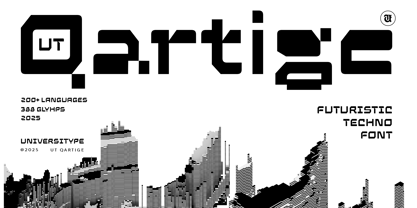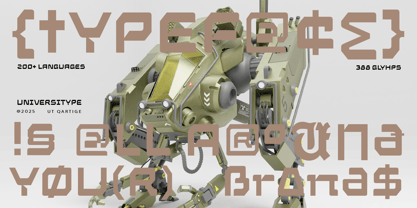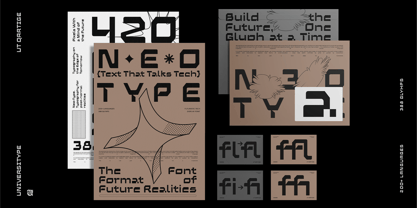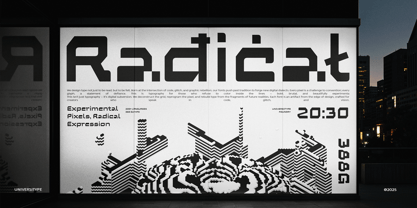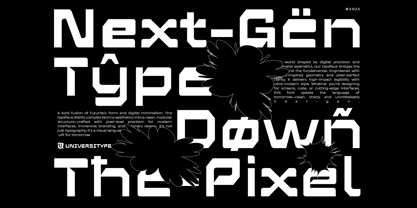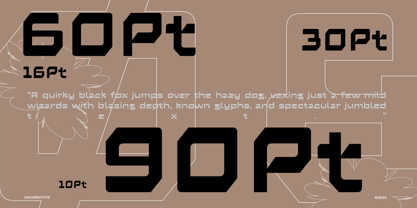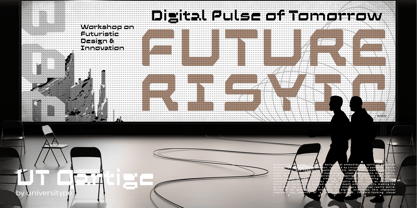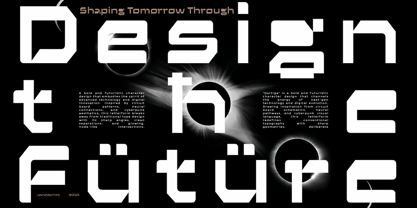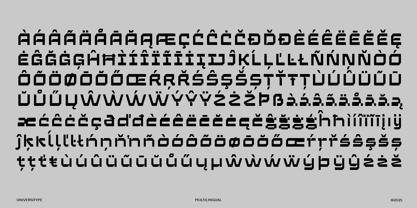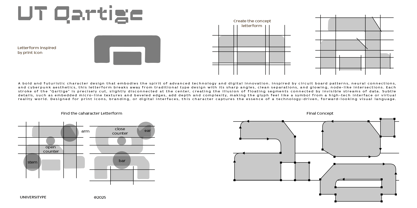
UT Qartige
UT Qartige is a techno-futuristic typeface born from the fusion of machine precision and digital rebellion. With its angular cuts, micro-line illusions, and bold, cyberpunk edge, this font feels like it just stepped out of a high-tech lab or a VR command center. Every letterform is designed to look like a data stream in motion—clean, coded, and full of character. It’s unapologetically modern, slightly disjointed for that “floating element” effect, and unmistakably built for a digital-first world.
Key Features
• Supports 200+ languages
• 388 glyphs including symbols, punctuation, and ligatures
• Unique disjointed-style letterforms that mimic floating segments
• Uppercase, lowercase, numbers, multilingual support
• Sharp geometric builds with soft curves at key terminals
• Designed with branding, interfaces, and futuristic displays in mind
Inspiration Behind the UT Qartige Design
The idea sparked from the humble “print” icon—reimagined as a core glyph. From there, UT Qartige grew into a visual tribute to circuit board patterns, neural maps, and the glitchy aesthetics of dystopian cities. Think cyberpunk grids, digital blueprints, and invisible data pulses. Every glyph tells a story of tech evolution, from analog roots to pixel-dense futures.
Usage Suggestions
UT Qartige perfect for:
• Tech logos & branding
• UI headers and interface labels
• Music covers, posters, and digital zines
• Sci-fi and gaming titles
• Virtual product packaging
• Futuristic web and mobile design
Basically, if your project looks like it belongs in 2049, UT Qartige fits right in.
Font features:
• Standard & discretionary ligatures
• Alternates
• Extended Latin support
• Punctuation and symbols
• Currency, math symbols, and technical marks
• Fraction and numeral support